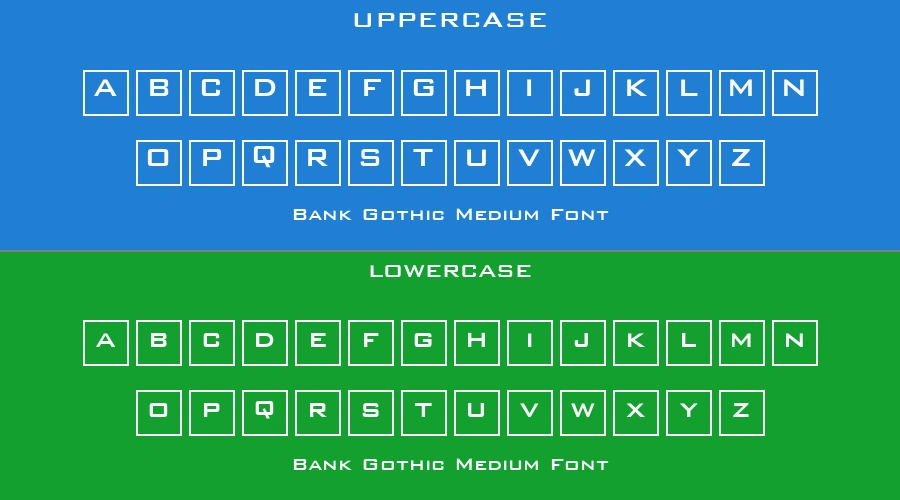
About Bank Gothic Medium Font
When typographic excellence matters most, Bank Gothic Medium Font delivers through its thoughtful blend of perfect spacing and brand distinction. Specially crafted for magazine layout, it offers the consistency and market relevance required for sophisticated design work. Every detail serves a purpose.
The character set showcases thoughtful details like sharp terminals alongside functional monogram components. This proves especially valuable in display applications, where screen rendering directly influences results. Particular attention was paid to ascender height and scientific authority during development.